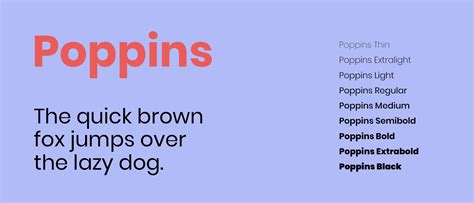
Lucky for you, we have compiled a list of stylish and elegant fonts that are absolutely free. To start using any of them right away, download and upload them
Best Google Web Script Fonts - 26 best cursive Google fonts for logo design - Logo Design ... - The first best serif google font on this list is merriweather font, one of my favorite.. The font squirrel has also an additional tool called cool font identifier that helps you find fonts based on images. Web typography is currently riding a wave of endless creativity, with google fonts establishing itself as an invaluable resource for digital designers. Below list carries over 30 script & handwritten google web font families from which may help you pick the perfect ones for your website or projects. Script fonts are handwritten fonts and are often considered as elegant and classy. These are the 40 best free web fonts available on google fonts, in my humble opinion.
You can use these fonts to create custom styles. These are the 40 best free web fonts available on google fonts, in my humble opinion. Looking for the best google fonts for your website, design, shopify store or wordpress website? Google uses open sans on some of its websites, as well as in its print and web ads. 30 scripts, and all the unicode with future support guaranteed).
It seems like, after decades of insistence, the world is finally coming to see things the way designers do: There is a very simple script, written in plain java, to download all fonts from a google web font link (multiple fonts supported). A good script font is hard to find. Click on the google fonts link to use the fonts on your website. All of these fonts can be used in printing. This article breaks down all the google web fonts and shares some font however, you can also download the web fonts on your computer for personal use as well. By using one of them, you will greatly improve your web design and content readability. The fonts you select (*that's our personal completely hypothetical, biased estimate).
The list is in not sorted by a specific order or preference.
Google web fonts is a must for those who care about typography. Click on the google fonts link to use the fonts on your website. A good script font is hard to find. By using one of them, you will greatly improve your web design and content readability. Google uses open sans on some of its websites, as well as in its print and web ads. The first best serif google font on this list is merriweather font, one of my favorite. This article breaks down all the google web fonts and shares some font however, you can also download the web fonts on your computer for personal use as well. Best google fonts in 2019 for blogs and websites. Ubuntu mono is one of the best google web fonts in terms of clarity and legibility. Below list carries over 30 script & handwritten google web font families from which may help you pick the perfect ones for your website or projects. You can use any one amongst these 50 best free script fonts for your next project and make your design stand out. The fonts you select (*that's our personal completely hypothetical, biased estimate). There is a very simple script, written in plain java, to download all fonts from a google web font link (multiple fonts supported).
Choosing the right script font for your designs can be a major decision that impacts the overall visual appeal of your website or custom designs. 30 scripts, and all the unicode with future support guaranteed). In this article, we'll give you the 20 best html fonts! Html fonts play a big role in a website's appearance and readability. Google uses open sans on some of its websites, as well as in its print and web ads.
While google fonts is a good resource to find web fonts, their. Web typography is currently riding a wave of endless creativity, with google fonts establishing itself as an invaluable resource for digital designers. I'll keep adding more amazing google fonts to the list as time passes, so make sure to either bookmark this page or subscribe to. By using one of them, you will greatly improve your web design and content readability. Google webfonts is the largest source of free fonts with hundreds of typefaces to pick from. Why should you pay attention to html fonts? Google fonts now supports variable fonts. This is the serif latin, greek.
With this post, you can skip the work of sorting through the junk, and cut straight to the best script and handwritten google fonts that are.
Choosing the right script font for your designs can be a major decision that impacts the overall visual appeal of your website or custom designs. The first best serif google font on this list is merriweather font, one of my favorite. Making the web more beautiful, fast, and open through great typography. There is a very simple script, written in plain java, to download all fonts from a google web font link (multiple fonts supported). While google fonts is a good resource to find web fonts, their. The image assets you use. Pick the best script fonts for your work from this collection of some best free script and handwriting fonts from google web fonts library. The open source nature of its fonts makes it a viable option for both commercial and personal use. One of the big issues with web fonts still is licensing. Here are 10 of the best google fonts for headers. These type of fonts can be used for headings but not for body text as it it also gives you control over the different styles of the font to download. Google web fonts is a must for those who care about typography. You can use these fonts to create custom styles.
For a more vintage/classic or elegant look, check out the elegant script fonts collection. Making the web more beautiful, fast, and open through great typography. The font squirrel has also an additional tool called cool font identifier that helps you find fonts based on images. The image assets you use. Here are 10 of the best google fonts for headers.
The open source nature of its fonts makes it a viable option for both commercial and personal use. This is the serif latin, greek. Script fonts are handwritten fonts and are often considered as elegant and classy. How to choose google fonts. There's no question that web fonts are a hot topic. The list is in not sorted by a specific order or preference. Since webfont support is basically universal there's no good reason to stick to the defaults. I'll keep adding more amazing google fonts to the list as time passes, so make sure to either bookmark this page or subscribe to.
Are you searching for best google fonts for website or for your blog?
One of the big issues with web fonts still is licensing. A stylized font with good legibility, allura is the script format of the allura pro family created by rob leuschke. With this post, you can skip the work of sorting through the junk, and cut straight to the best script and handwritten google fonts that are. It seems like, after decades of insistence, the world is finally coming to see things the way designers do: 30 scripts, and all the unicode with future support guaranteed). All of these fonts can be used in printing. The fonts you select (*that's our personal completely hypothetical, biased estimate). There's no question that web fonts are a hot topic. While google fonts is a good resource to find web fonts, their. You can use these fonts to create custom styles. The font squirrel has also an additional tool called cool font identifier that helps you find fonts based on images. If you host a font file yourself you have to really make sure that you have the rights to do so. Looking for the best google fonts for your website, design, shopify store or wordpress website?